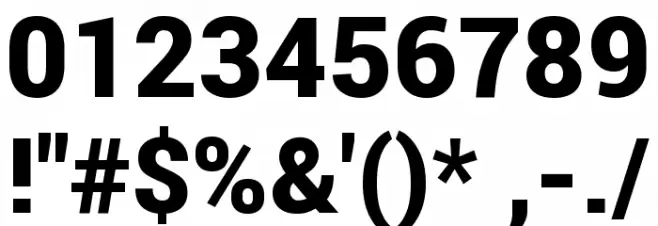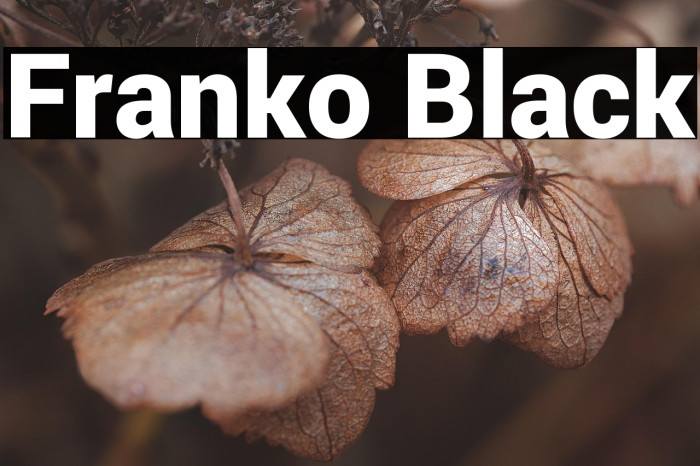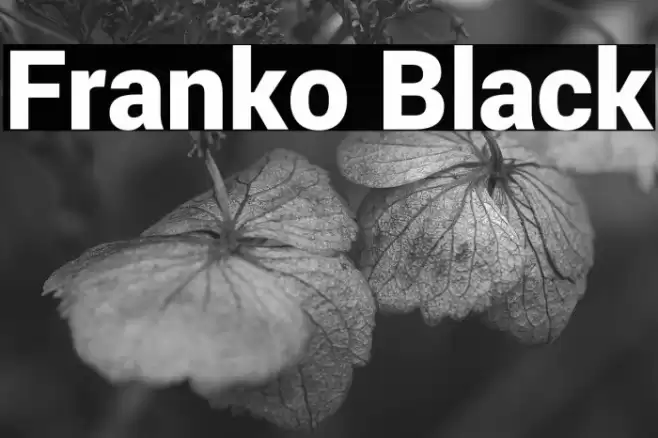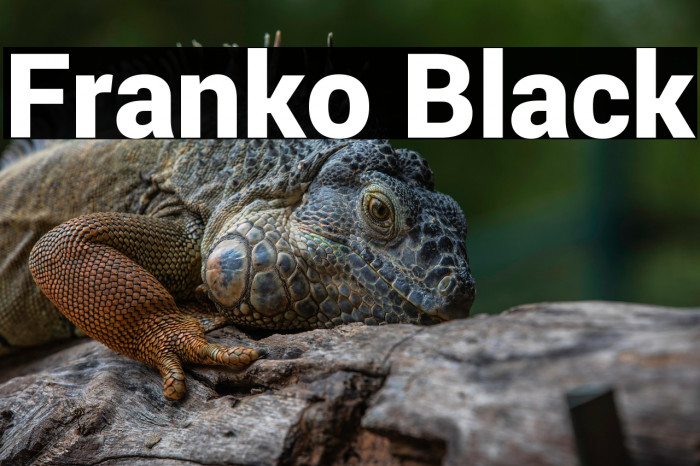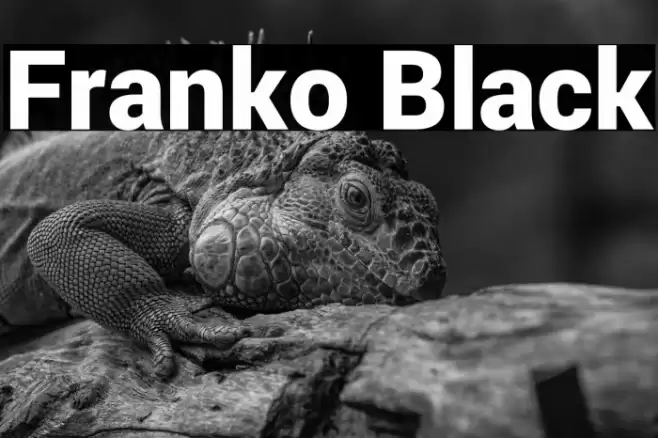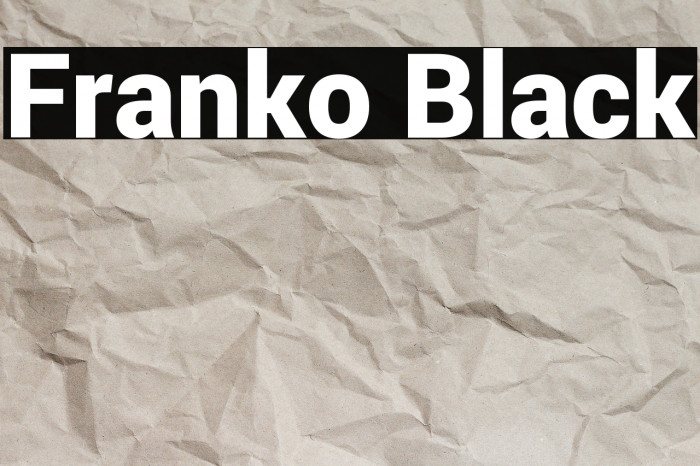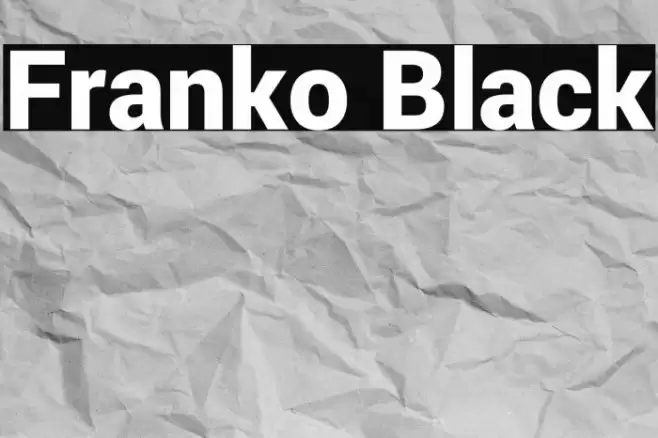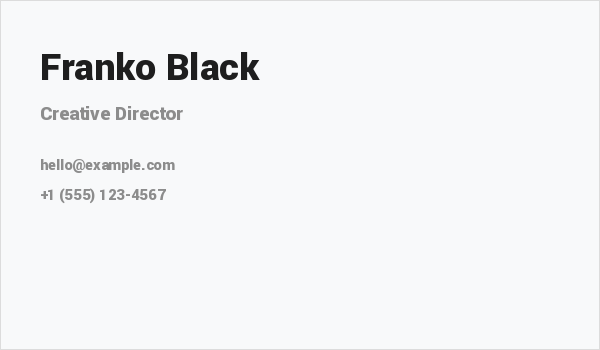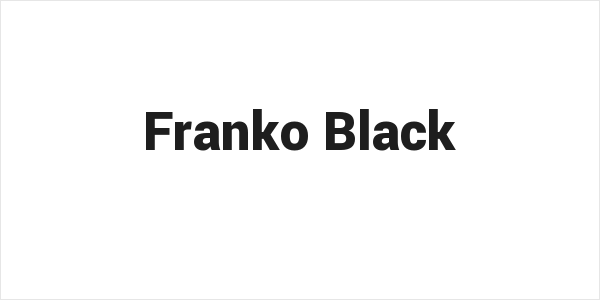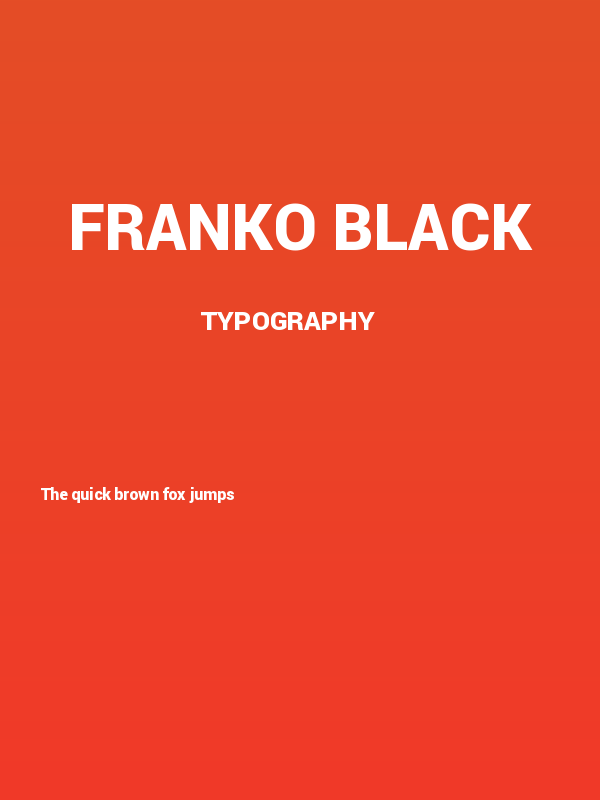
Franko Black Font
Franko Black Description
This typeface is characterized by its bold and robust appearance, making it highly suitable for impactful and attention-grabbing designs. The letters are uniformly thick, providing a strong visual presence. The uppercase and lowercase letters maintain a consistent style, with clean lines and a modern aesthetic. The numerals are equally bold, ensuring they stand out in any context. Special characters are designed with the same boldness, ensuring uniformity across all glyphs. This font's overall style is modern and assertive, making it ideal for projects that require a strong visual impact.
| Proposed Projects | Ideal for headlines, posters, branding, and advertising where a strong impact is needed. |